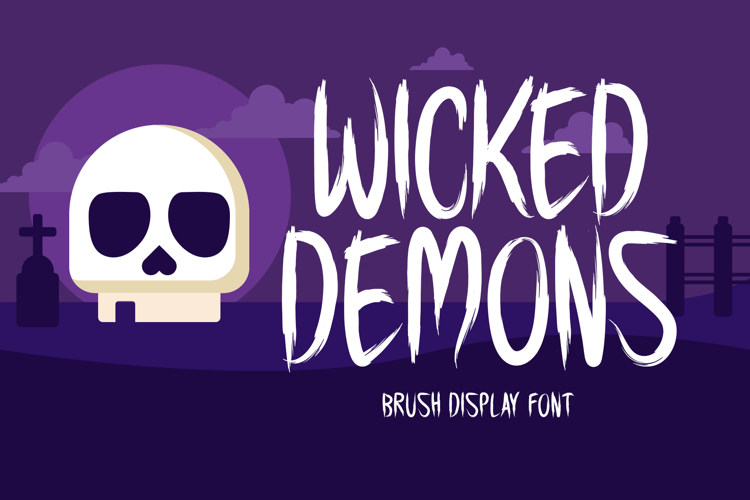
Introducing Wicked Demons!
Wicked Demons is a striking display typeface inspired by the spirit of Halloween and the world of the supernatural. Its bold, creepy character makes it ideal for stationery, logos, apparel, invitations, posters, and online visuals. From haunted party flyers to horror-themed branding, Wicked Demons adds a dark, dramatic energy that instantly captures attention and sets the perfect mood.